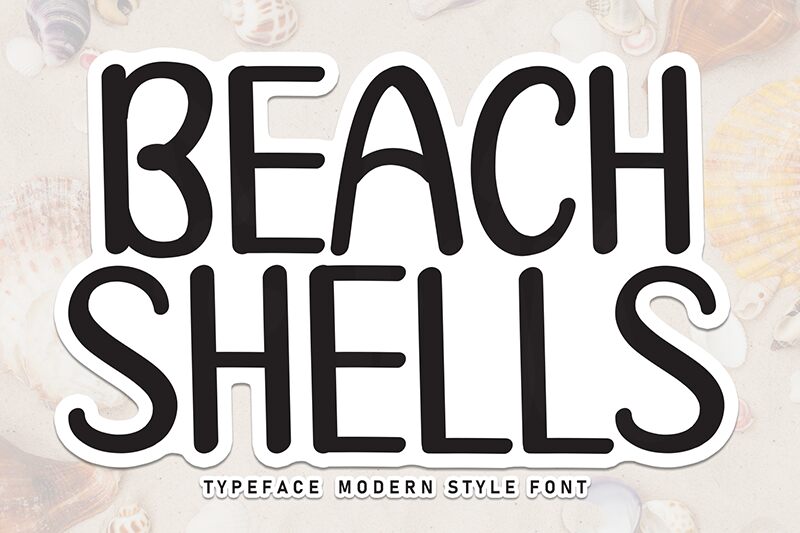
Beach Shells
Beach Shells font is a handwritten masterpiece from Andi Moz, inspired by a breezy beach atmosphere with its relaxed glyphs and easy-going elements. Each character stands as an individual within the font’s design by carrying subtle curves that look like light waves created by gentle winds. The font radiates coastal, contemporary allure with a casual vibe.
Free handwriting fonts are always welcomed in designs for quotes, posters, branding presentations, and stationery items. With Beach Shells your bookmarks and business cards can feel effortless yet personal just like invitations to casual seminars and gatherings among many other uses!